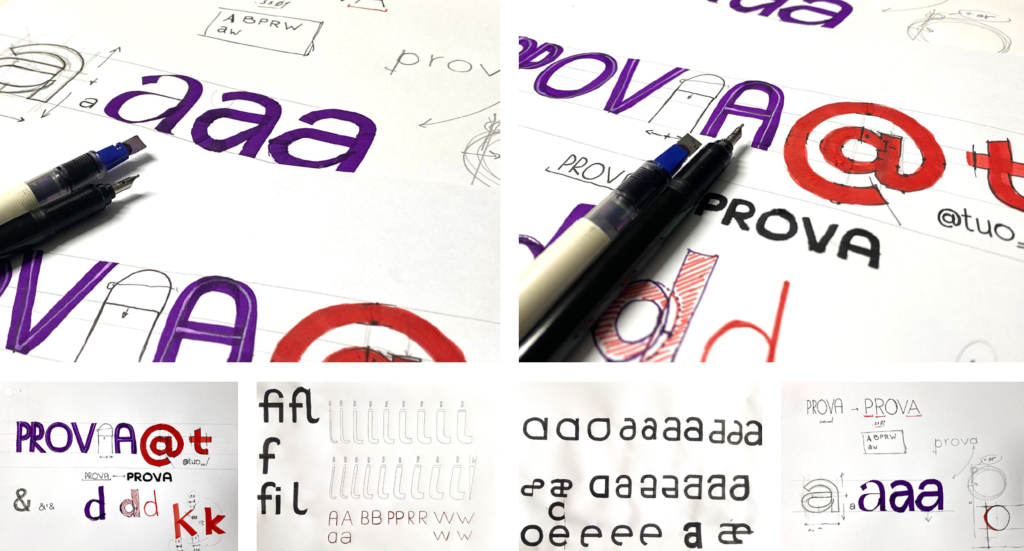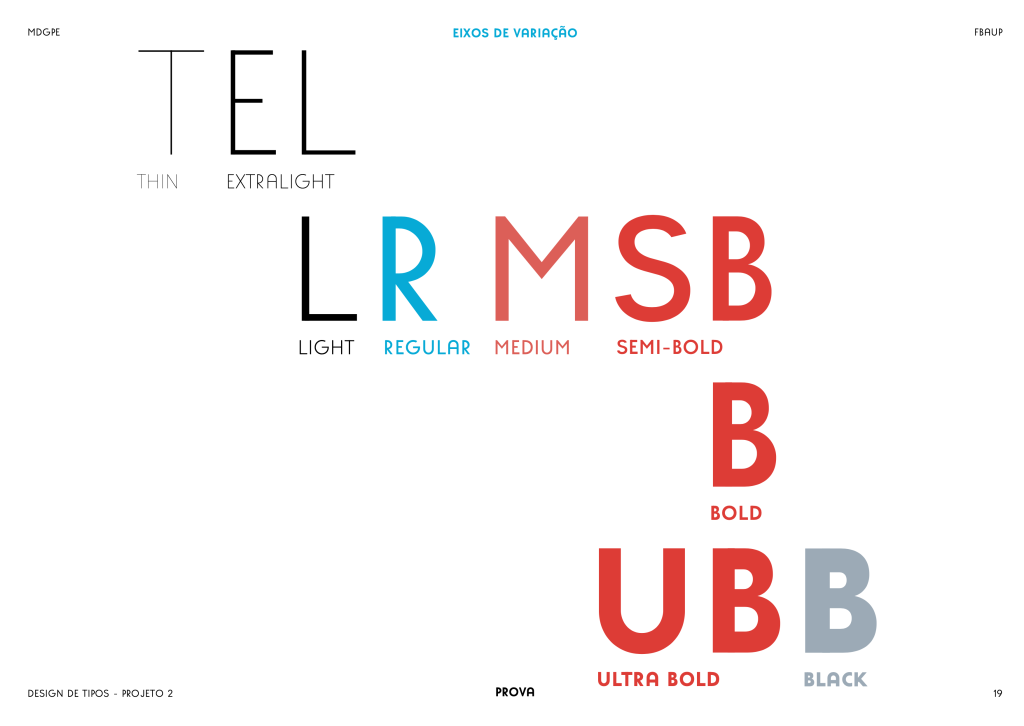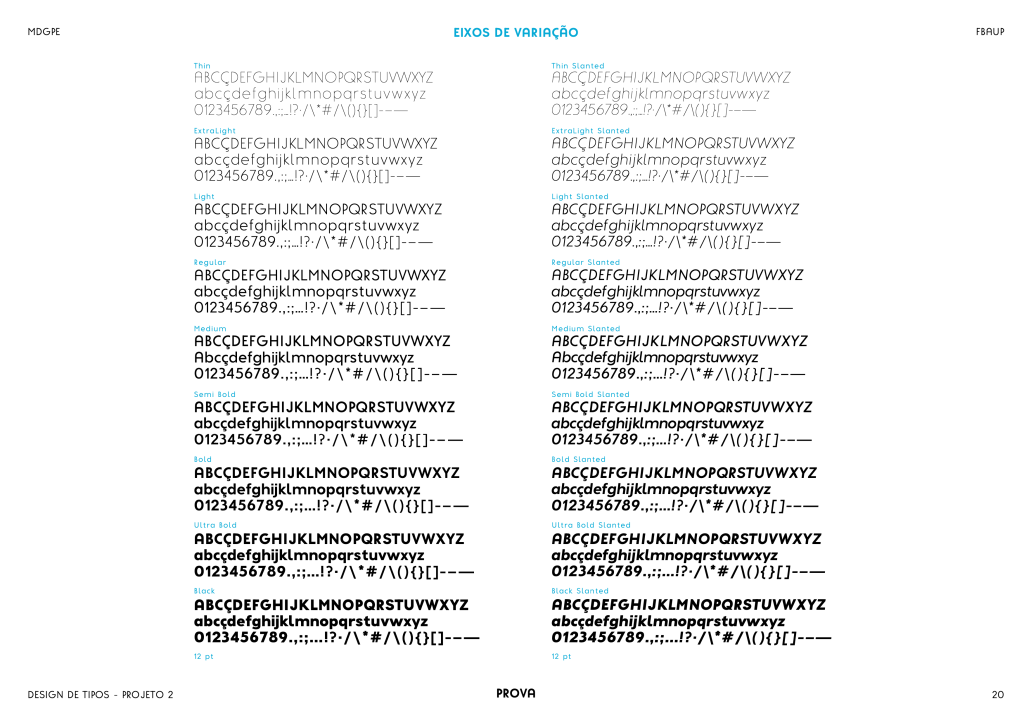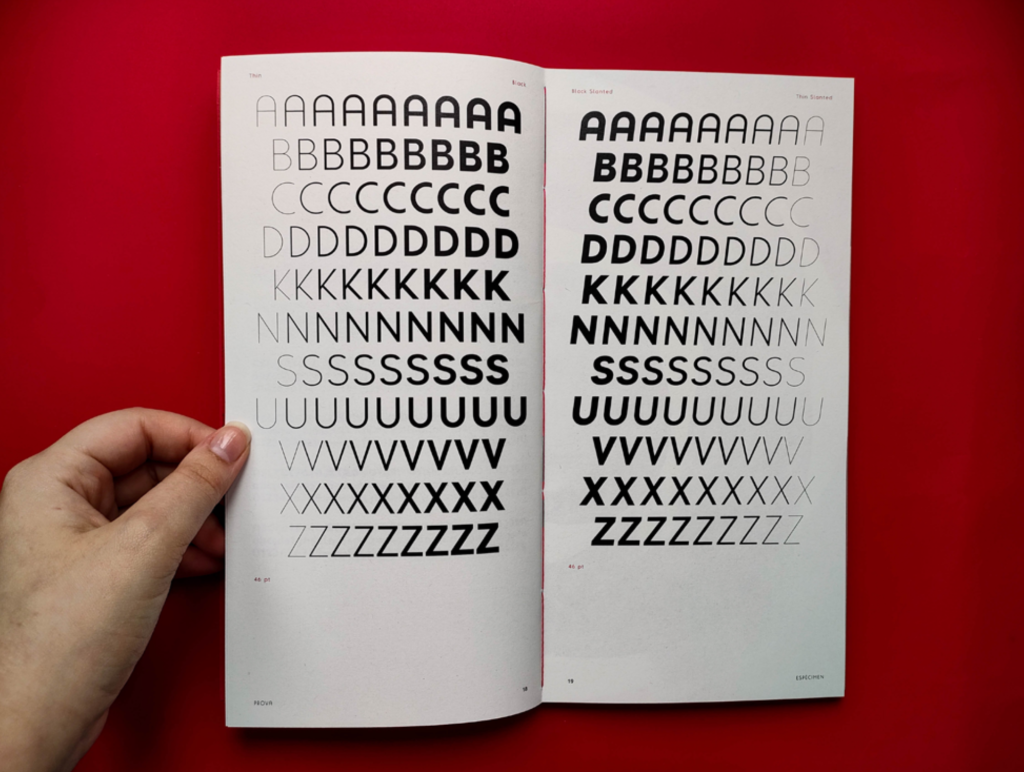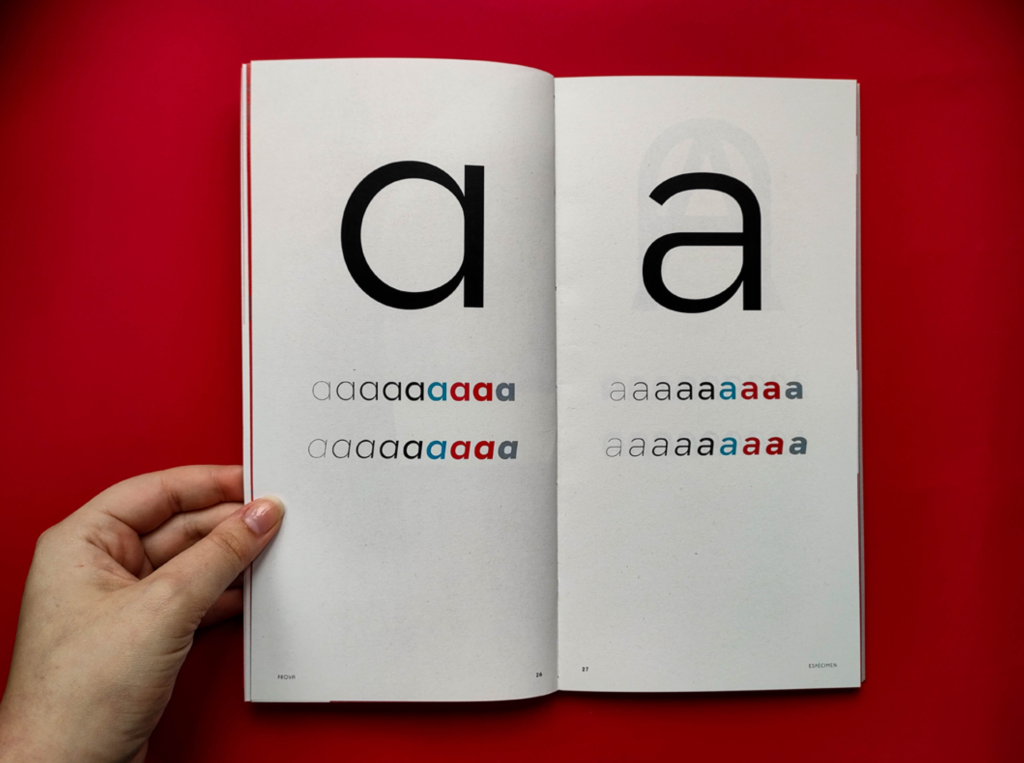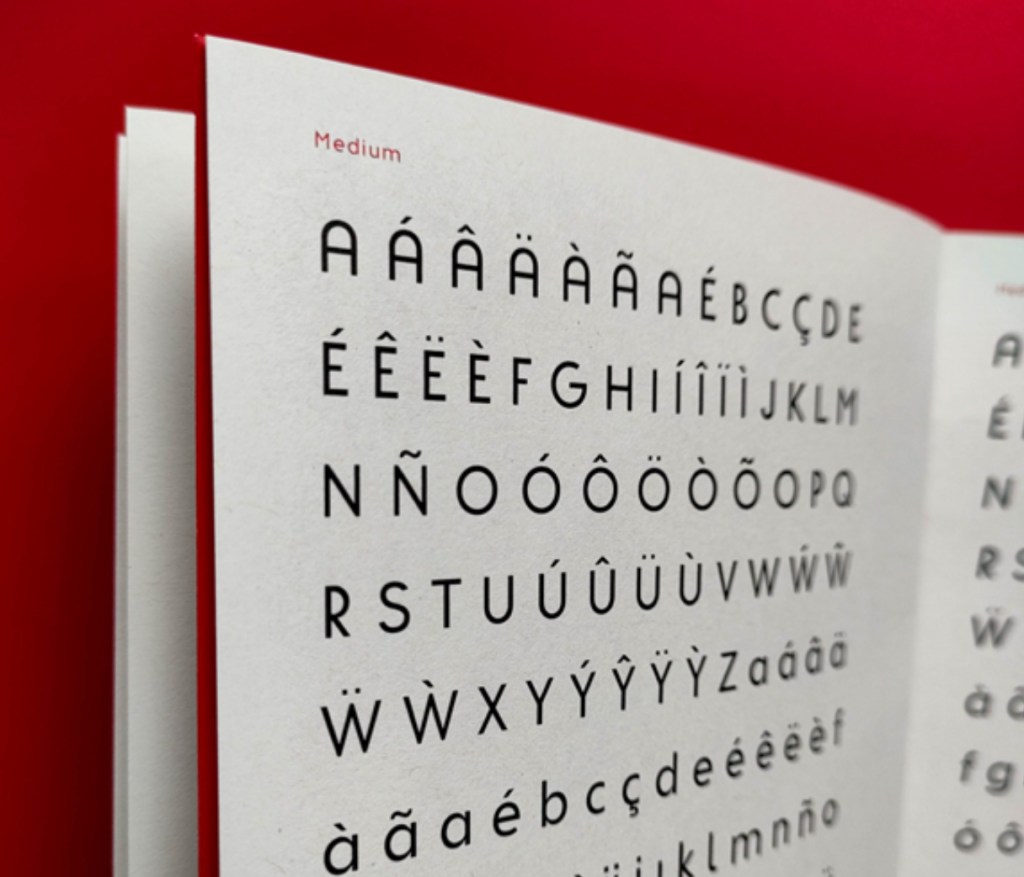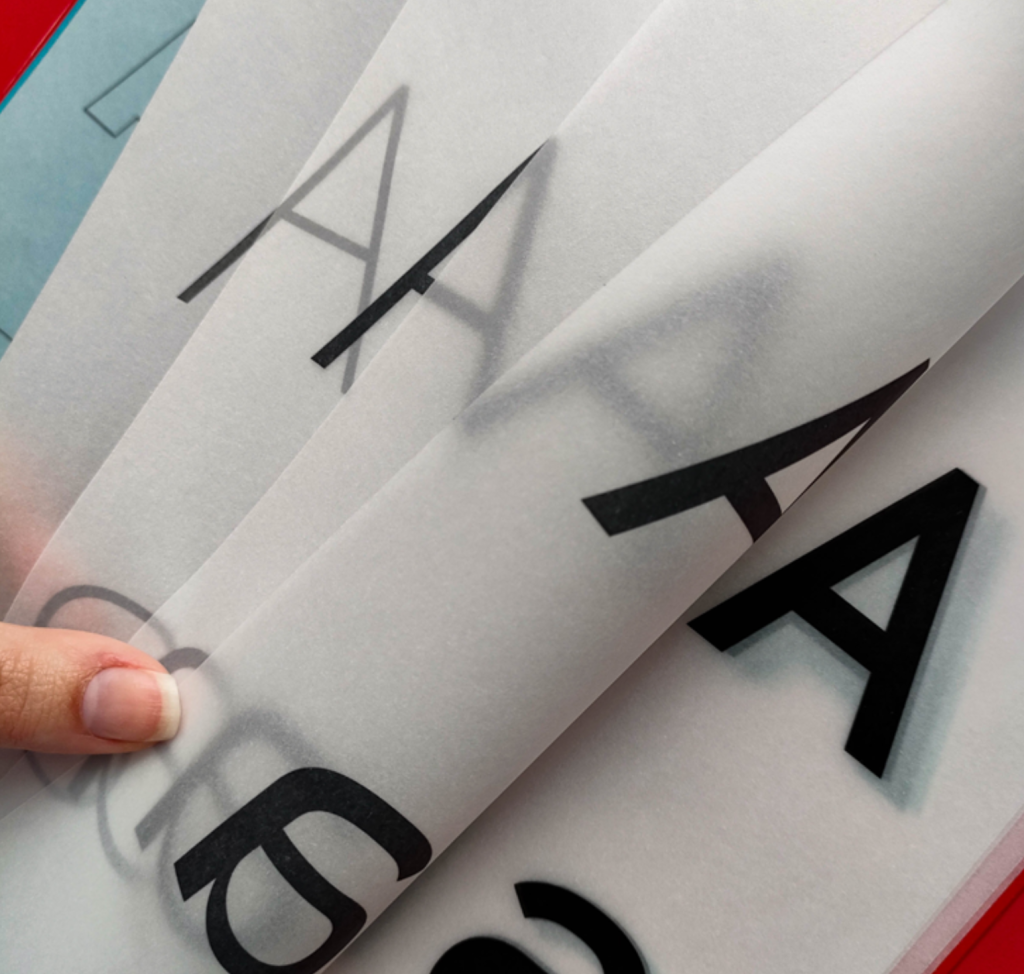
Prova is a geometric sans serif typeface, designed by Bruna Valoura, Bruno Barros, Cristiana Braz, and Inês Loureiro in 2024.
Prova is a revival of Tia Lira, one of the “first geometric typeface developed in Portugal” [please take this information with a slight grain of salt — see more infor about its origin in his autobiographicl book], originally designed by Manuel Pereira da Silva. With its clean forms and historical resonance, Prova brings new life to this experimental typeface first presented in 2003 but conceived decades earlier as a pedagogical tool.
While maintaining the rationality and precision of geometric sans serifs, Prova also draws on Art Deco influences, merging sharp functionality with elegant nostalgia. The project references not only Tialira’s legacy but also the lineage of modernist typefaces — from Futura and Kabel to Avenir and Gotham — establishing a clear dialogue with 20th-century design while remaining distinctly contemporary.
The typeface includes 9 weights, from Thin to Black, and is also available in a full Slanted variant, expanding its expressive versatility. It supports a wide character set (229 glyphs) with alternates for letters and numerals, allowing for custom tones and textures across branding, editorial, and display applications.
With its refined construction and dynamic structure, Prova offers a functional yet characterful response to the original spirit of Tia Lira — poised between pedagogical origins and professional adaptability.